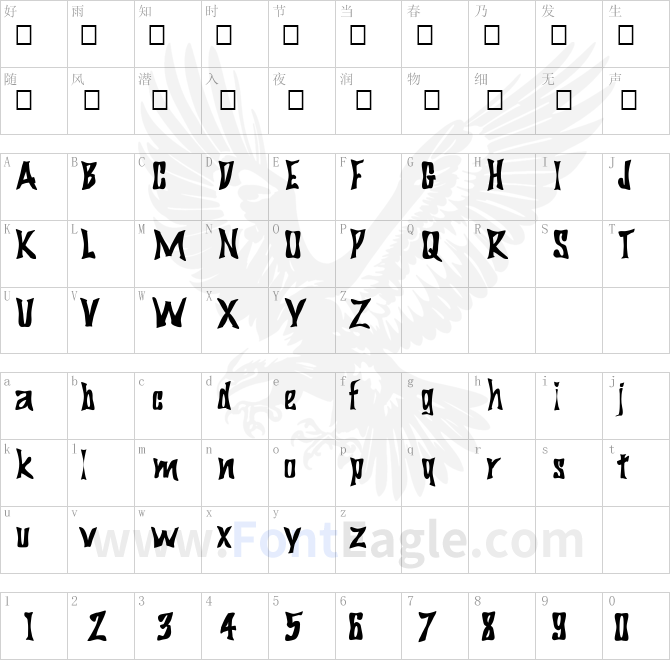
FZ-WARPED-29 is a great font, widely used in graphic design, single-page menu design, poster design and other fields, and is deeply loved by designers.FZ-WARPED-29 download.